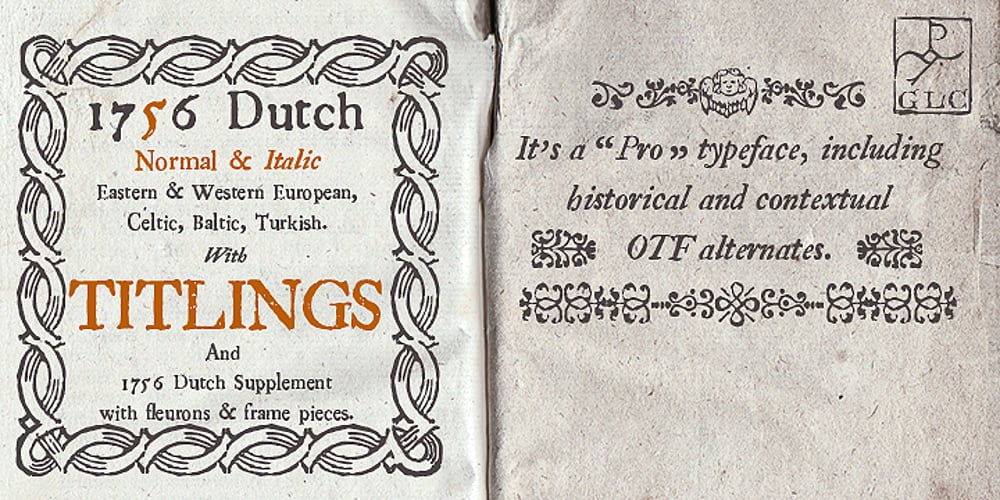
1756 Dutch
1756 Dutch font
1756 Dutch Font Family was designed by published by GLC. 1756 Dutch contains 3 styles and family package options. This family is inspired from the set of two styles, Roman normal and Italic, and the ornaments used by an unknown printer working around East Switzerland, circa 1750’s. It is a Dutch style font, slightly bolder than usual Fournier’s or Caslon’s Roman fonts, with some emphasized serifs and finals parts and special letters as capital “U” for example. A set of initials, fleurons, ornaments and frame elements is joined to the family as a supplement. The two styles, Normal and Italic, are containing standard ligatures, a few alternative characters and titlings (who are more preferable than enlarged capitals). They are “small eye” or “Small x-eight” fonts. The standard characters set is completed with accented or specific characters for Western (Including Celtic) and Central Europe, Baltic, Eastern Europe and Turkish.